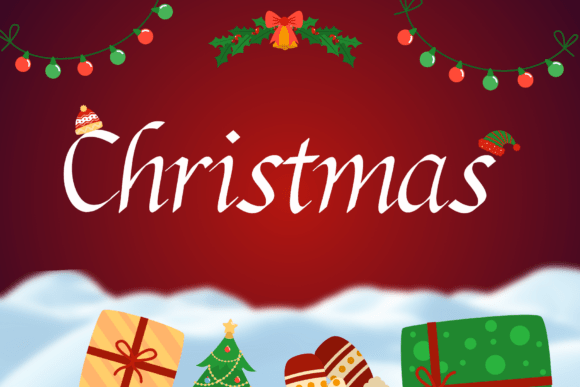
The Magic of Christmas Font: Bringing Joy to Your Designs
As a designer, have you ever found yourself searching for the perfect font to capture the essence of the holiday season? You know, that feeling when you stumble upon a font that instantly transports you to a winter wonderland, filled with twinkling lights, cozy firesides, and joyful laughter? For many of us, this moment of creative serendipity is what makes the holiday season so special.
Enter the Christmas Font, a beautifully crafted handwritten font that embodies the spirit of the season. With its flowing strokes and elegant style, this font is perfect for adding a touch of warmth and sophistication to your designs. Whether you’re creating greeting cards, invitations, or festive projects, the Christmas Font is sure to bring a timeless touch of celebration and charm to your typography.
Key Features of Christmas Font
- Unique Characteristics: The font features a festive, hand-drawn design with intricate details, making it perfect for holiday-themed projects, such as Christmas cards, gift tags, and packaging.
Designer Review: Christmas Font
Christmas Font is a festive and cheerful font perfect for the holiday season. ✨ I love the playful, cursive style and the variety of decorations that add a touch of magic to each letter. The font is well-suited for titles, headings, and other text elements where you want to grab attention.
Here are some of the things that work well with Christmas Font:
- Unique and festive design that’s perfect for Christmas-themed projects
- Easy to read, even in smaller sizes
- Works well with a variety of backgrounds and colors
However, there are some limitations to keep in mind:
- May not be suitable for formal or professional projects due to its playful nature
- Can be overwhelming if used extensively throughout a design
- May not be compatible with older versions of software or operating systems
Overall, I think Christmas Font is a great choice for holiday-themed projects, but it may not be the best fit for every design. With some careful use and consideration, it can add a fun and festive touch to your designs. ⚠️ Just be mindful of its limitations and use it thoughtfully.
Christmas Font is commonly used for:
– Holiday greeting cards
– Christmas party invitations
– Seasonal social media posts
– Winter-themed website headers
For the best results, pair Christmas Font with festive colors and patterns, such as red and green, snowflakes, or holly leaves. You can also experiment with different font sizes and styles to add visual interest to your design.
Alternatives to Christmas Font for Designers
Great Vibes is a modern, elegant script font that’s perfect for adding a touch of sophistication to your Christmas designs. It’s ideal for use in invitations, greeting cards, and packaging. Compared to Christmas Font, Great Vibes has a more refined and polished look, making it suitable for high-end designs.
Pacifico is a beautiful, cursive font that’s reminiscent of a warm winter evening. It’s great for use in Christmas-themed advertisements, social media posts, and website headers. While Christmas Font is more playful and fun, Pacifico has a softer, more romantic quality that’s perfect for evoking a sense of coziness.